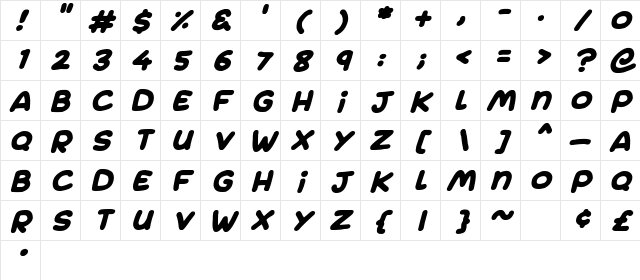
Jumping Italic Free Font
Jumping Italic
Jumping Family
Design Context for Jumping
Jumping is a composed and adaptable typeface that performs quietly and consistently across a wide range of design contexts. The slanted form adds forward momentum and visual energy.
Pro Tip: Use Jumping for emphasis, pull quotes, and subheadings where its slanted energy can add rhythm to the layout.